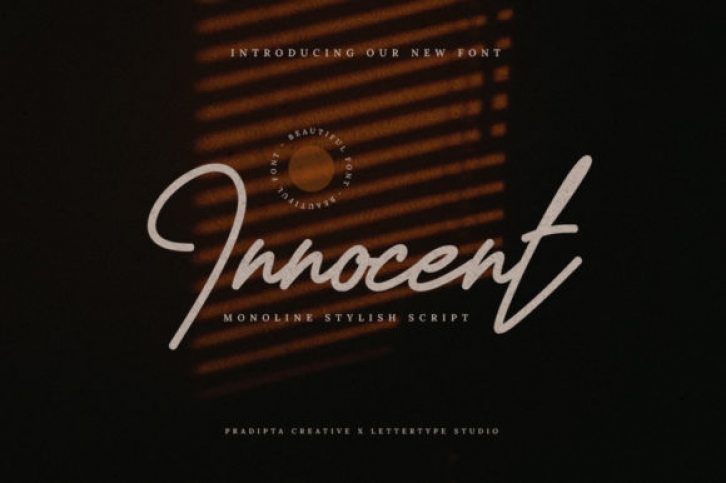
Innocent Script is a stylish and light script font, that exudes elegance and class. This font was particularly crafted for those who need a beautiful and refreshing look to their designs.